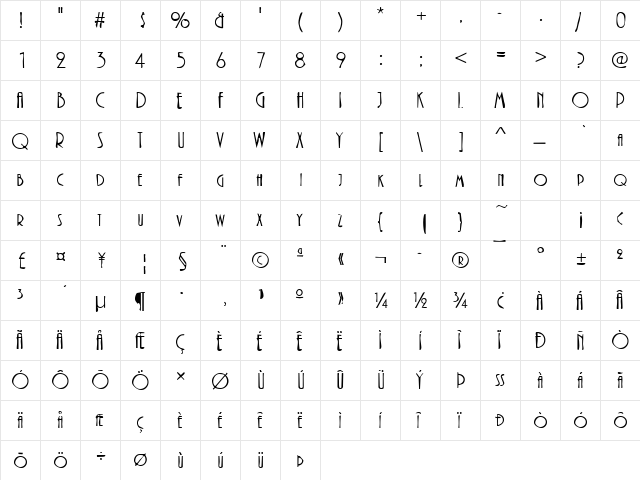
Dirty40 Becker Regular
Design Context for Dirty40 Becker Typeface
Dirty40 Becker is a composed and adaptable typeface that performs quietly and consistently across a wide range of design contexts.